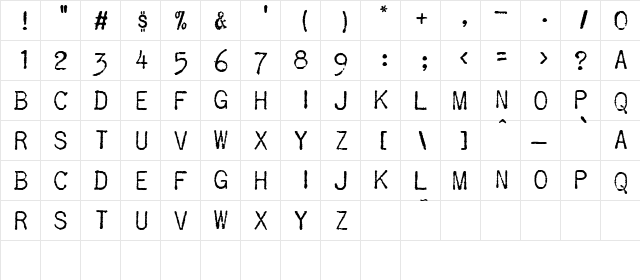
Telegram HPLHS
Design Context for Telegram Typeface
Telegram takes a measured approach to typography — its balanced proportions and neutral character make it a reliable workhorse for both digital and print work.